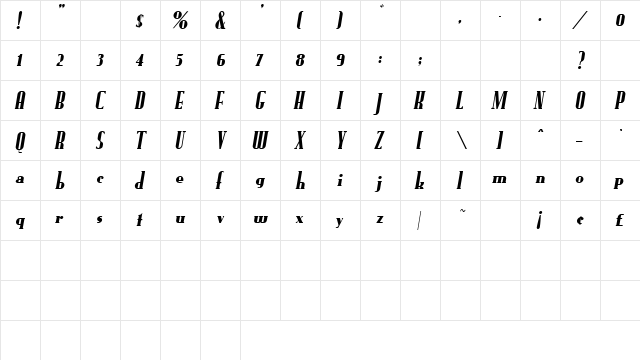
Nephew Oblique
Design Context for Nephew Typeface
Nephew takes a measured approach to typography — its balanced proportions and neutral character make it a reliable workhorse for both digital and print work. The dynamic lean of this cut emphasises speed and emphasis in any layout.
Pro Tip: Try Nephew for annotation and caption copy alongside an upright companion — the contrast in angle creates a dynamic but ordered typographic system.